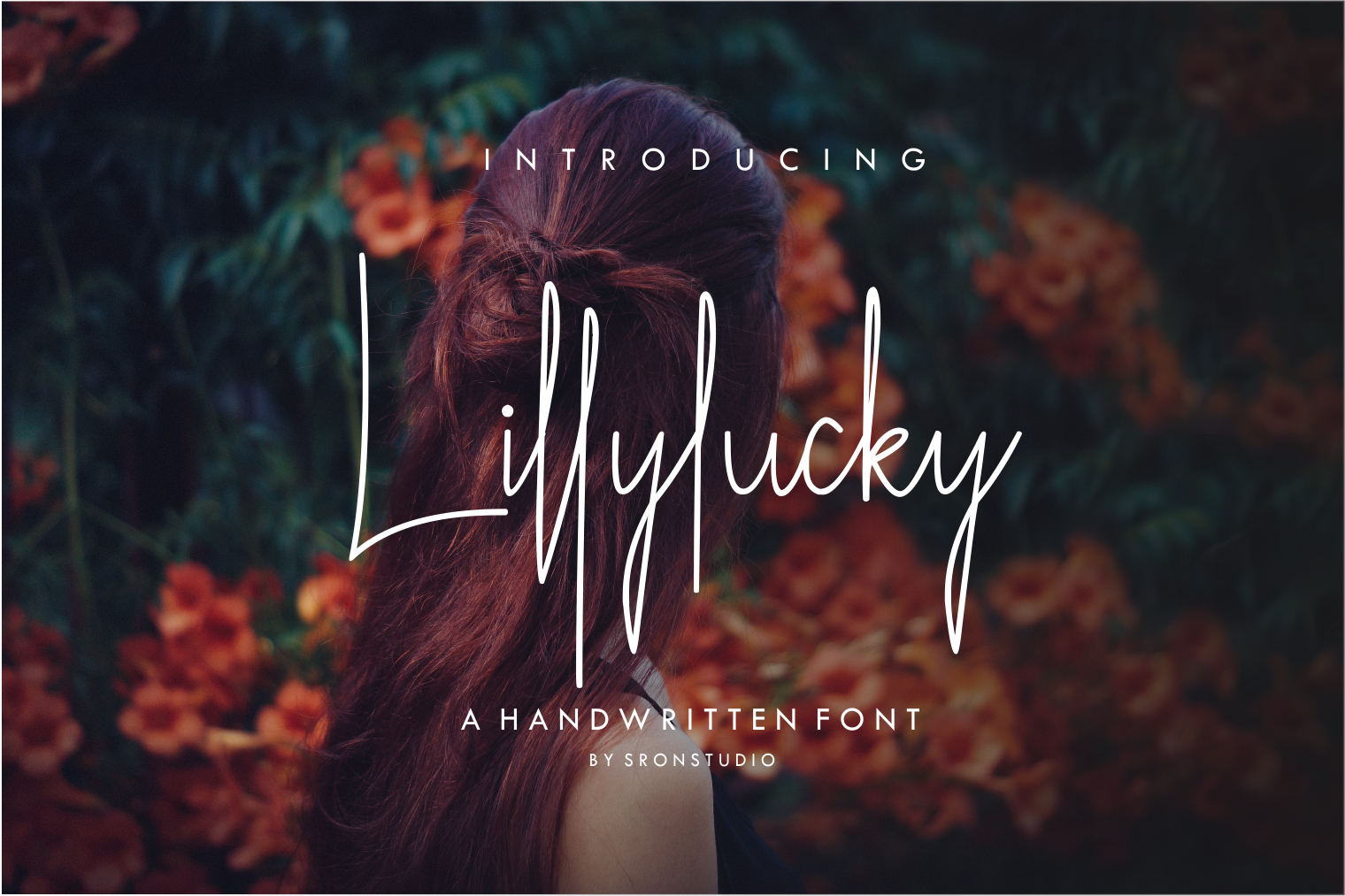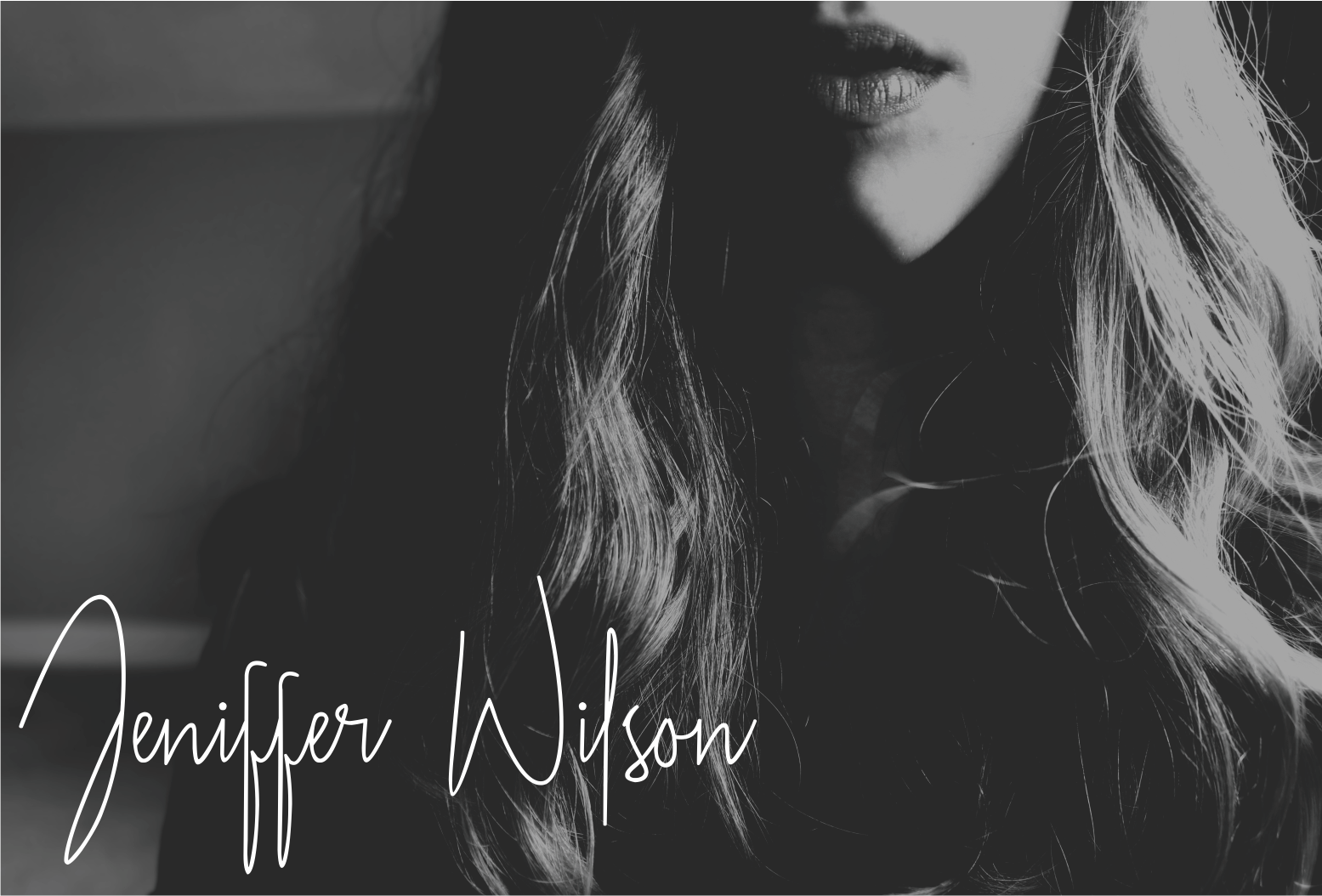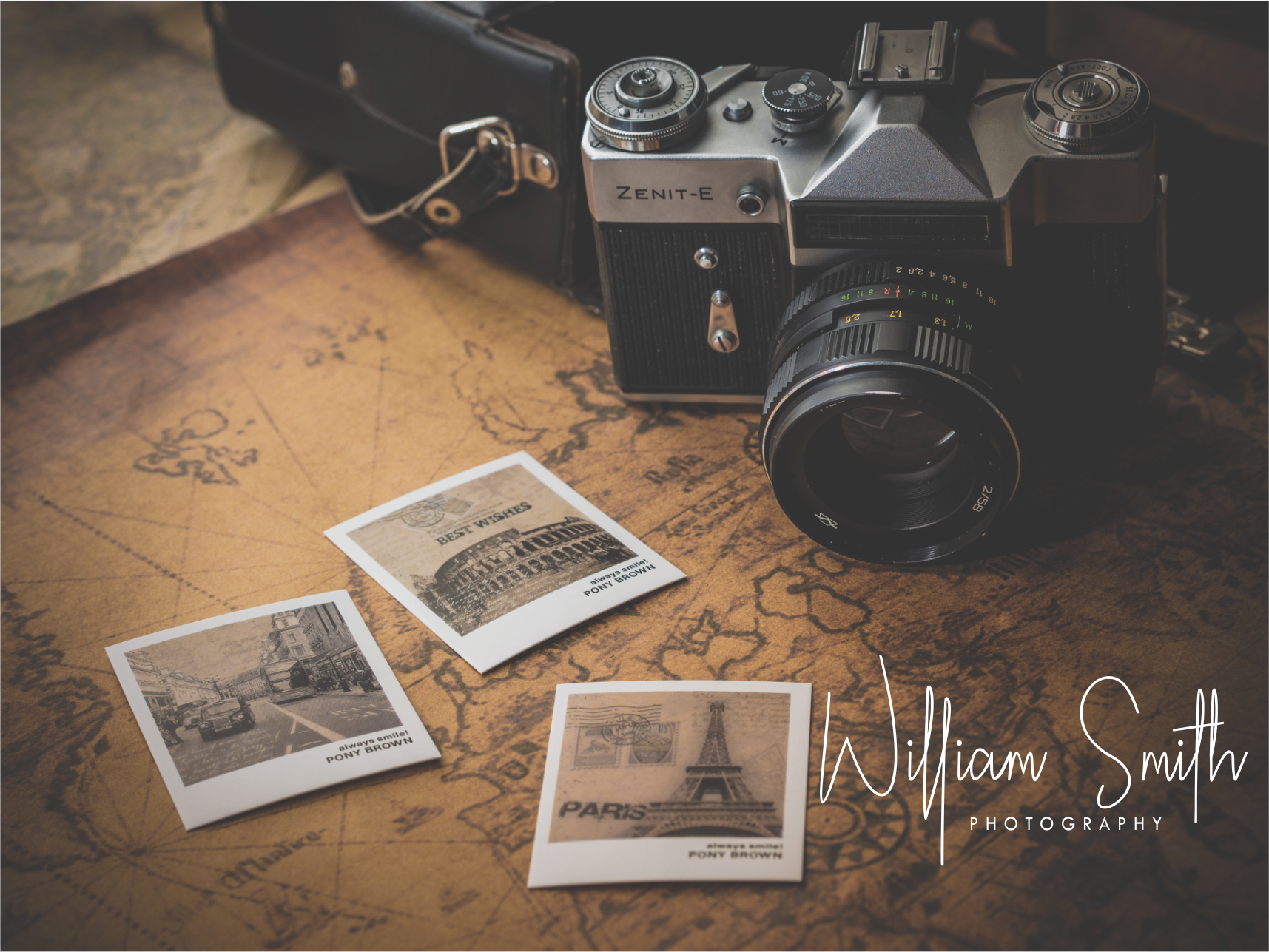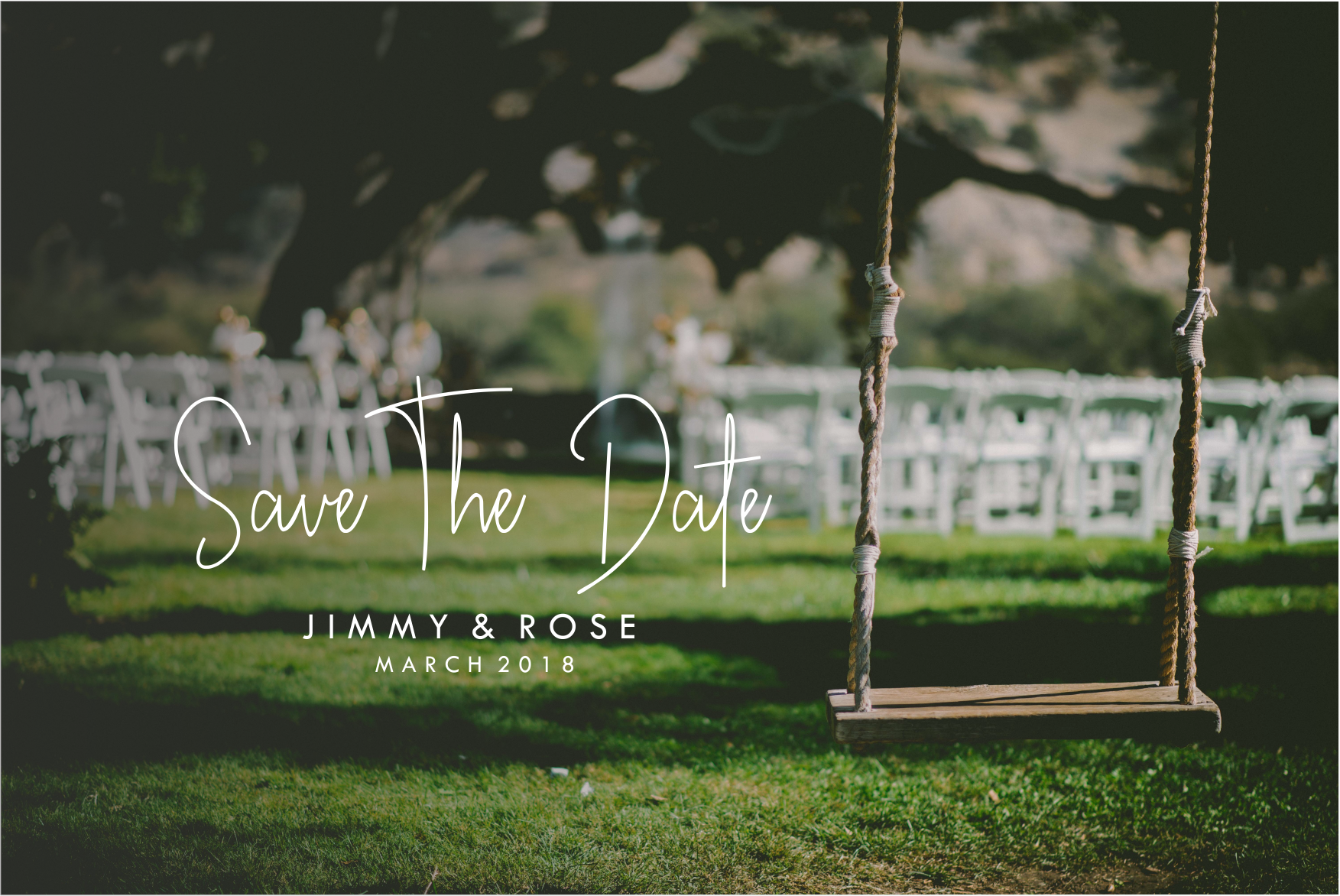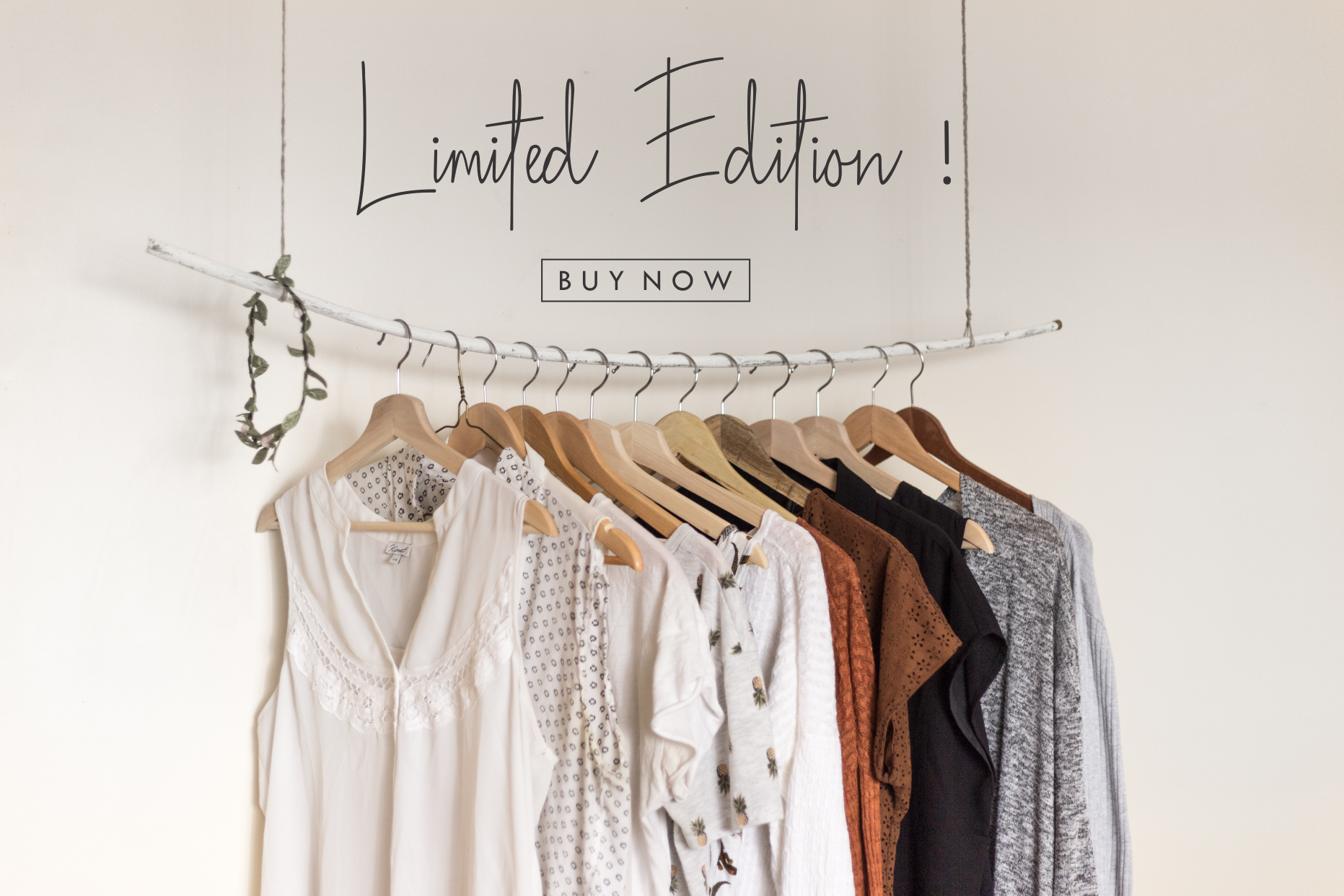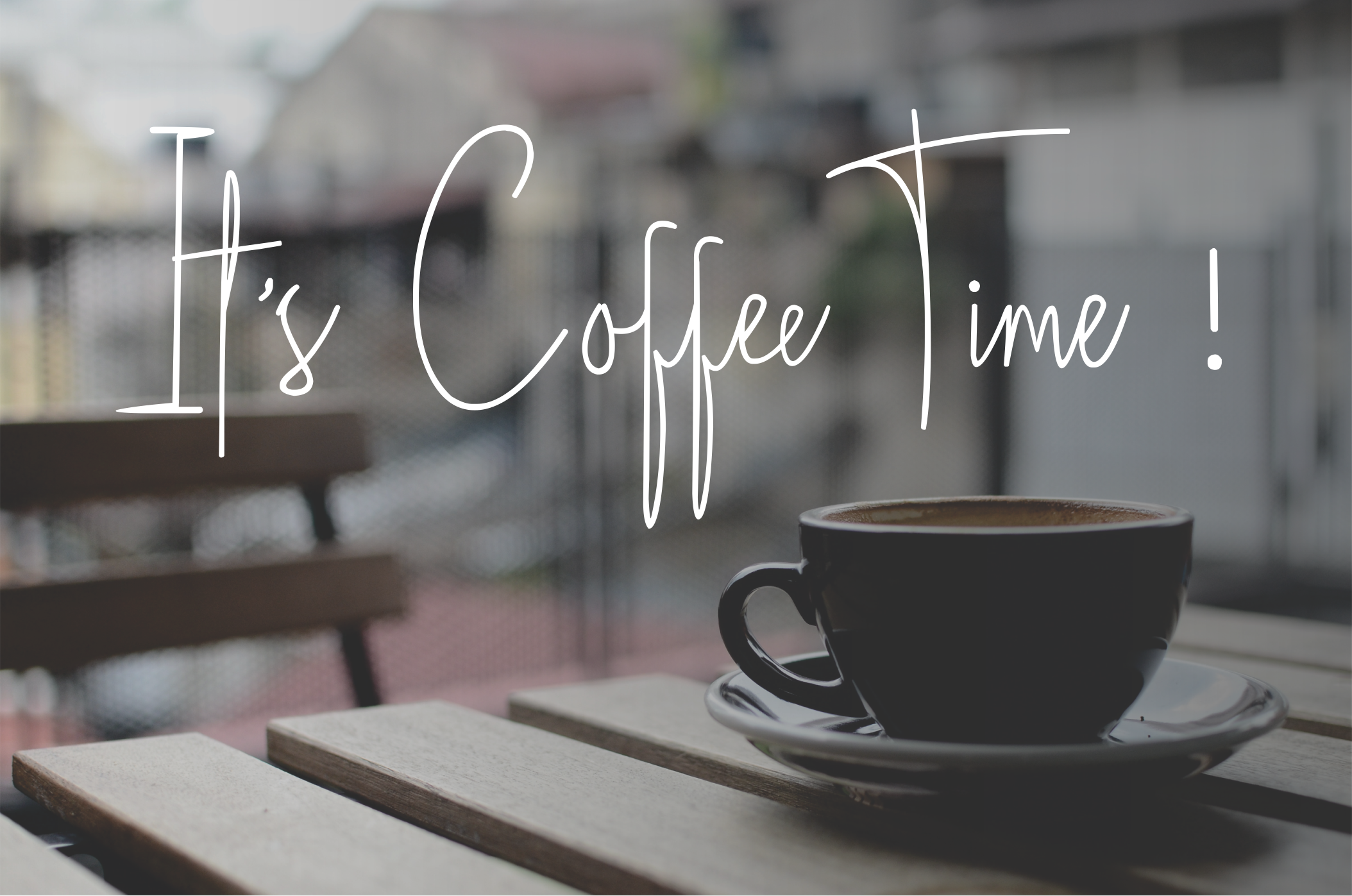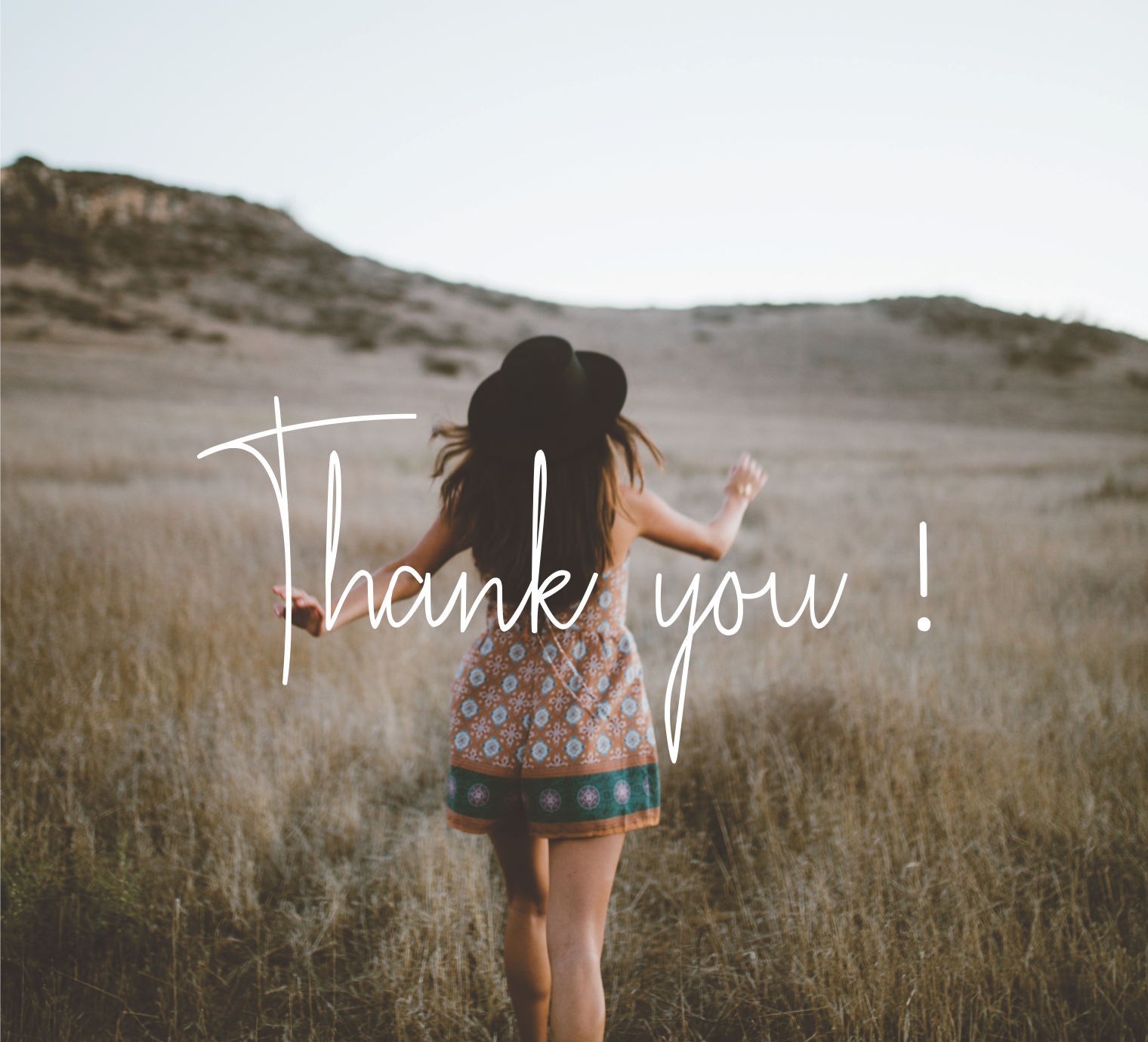
Lillylucky Font
About Lillylucky Font
Lillylucky is a handwritten signature font with thin strokes and elegant lines. This script flows casually, and can give any project a relaxed feel. Lillylucky is ideal for use in signature style designs.